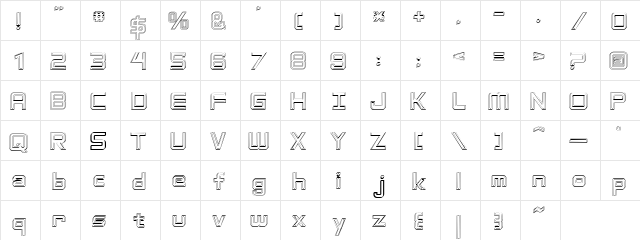
KneeJolt Regular Font Preview
KneeJolt Regular
KneeJolt Regular Font Details
Design Context for KneeJolt Typeface
KneeJolt is a composed and adaptable typeface that performs quietly and consistently across a wide range of design contexts.